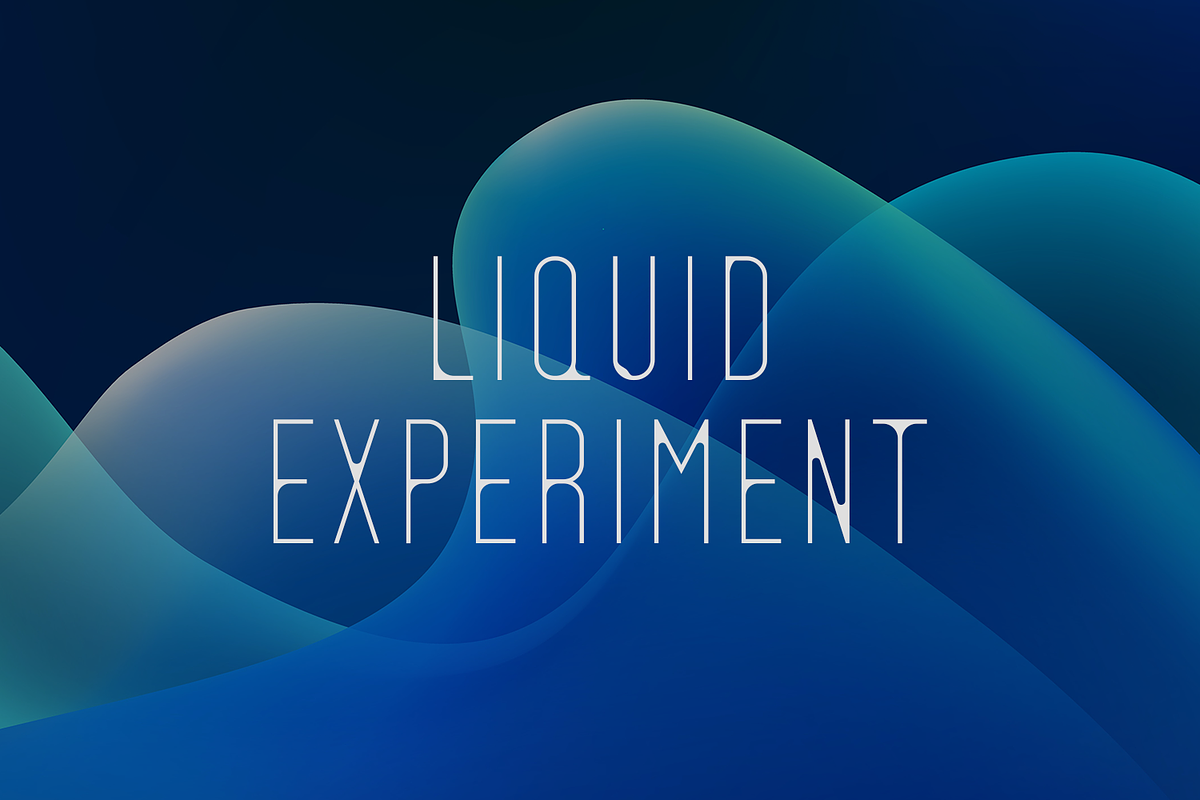
Likweed Free Download
Likweed Font Free Download
Likweed Font Free Download is a bold and experimental display typeface with a unique, fluid structure that makes it stand out in any design. Perfect for edgy branding, album art, streetwear, zines, posters, and digital artwork, this font is all about breaking norms and making bold visual statements.
Its organic shapes and unconventional forms give Likweed a modern, rebellious edge—ideal for designers looking to challenge the ordinary and push creative boundaries. It shines in large formats where its character and personality can truly take center stage.